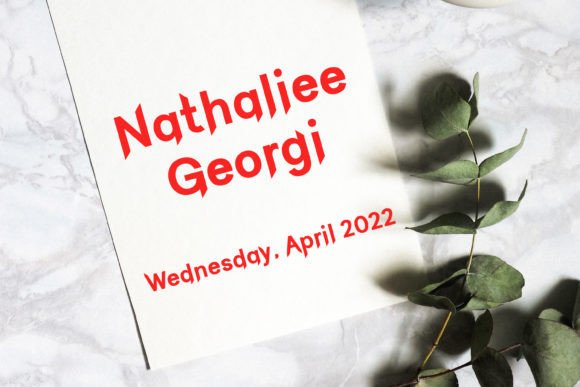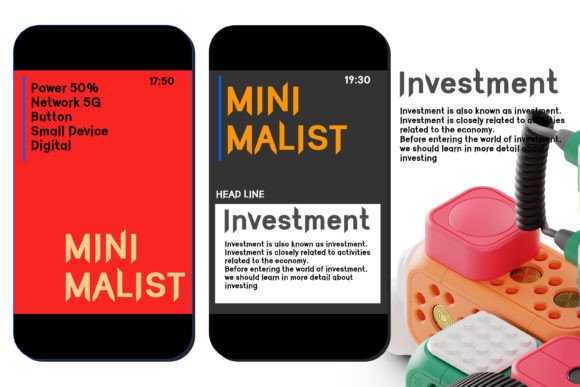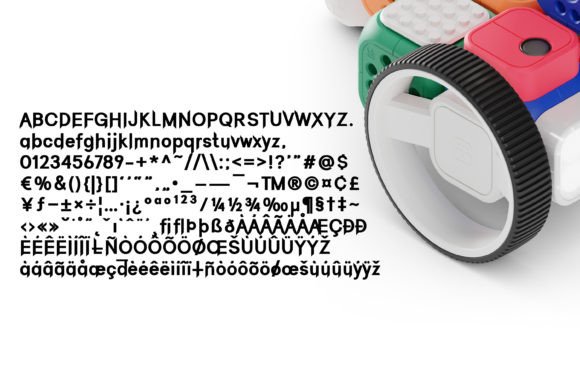
Introduction to Kaliji Font Font
Fonts play a crucial role in design, and the Kaliji Font font is a typeface that brings both character and versatility to any project. Whether you’re working on a branding project, a website, or a print design, the Kaliji Font font offers a unique style that can elevate your work.
Unlike the usual sans serif, Kaliji is intentionally made with different stem sizes.
By adding a pointed triangle at the bottom end of the stem, this font has a distinctive and attractive shape Add it confidently to your projects and enjoy the results.
Key Features of Kaliji Font Font
Why Choose Kaliji Font Font?
The Kaliji Font font is more than just a typeface – it’s a design tool that helps you communicate your message with style and clarity. Its unique character set and versatile design make it suitable for a wide range of applications, from elegant invitations to bold headlines.
With its carefully crafted letterforms and balanced proportions, the Kaliji Font font ensures readability and visual appeal across all mediums.
What makes Kaliji Font font special?
The Kaliji Font font stands out with its unique design, exceptional readability, and versatility across various design applications.